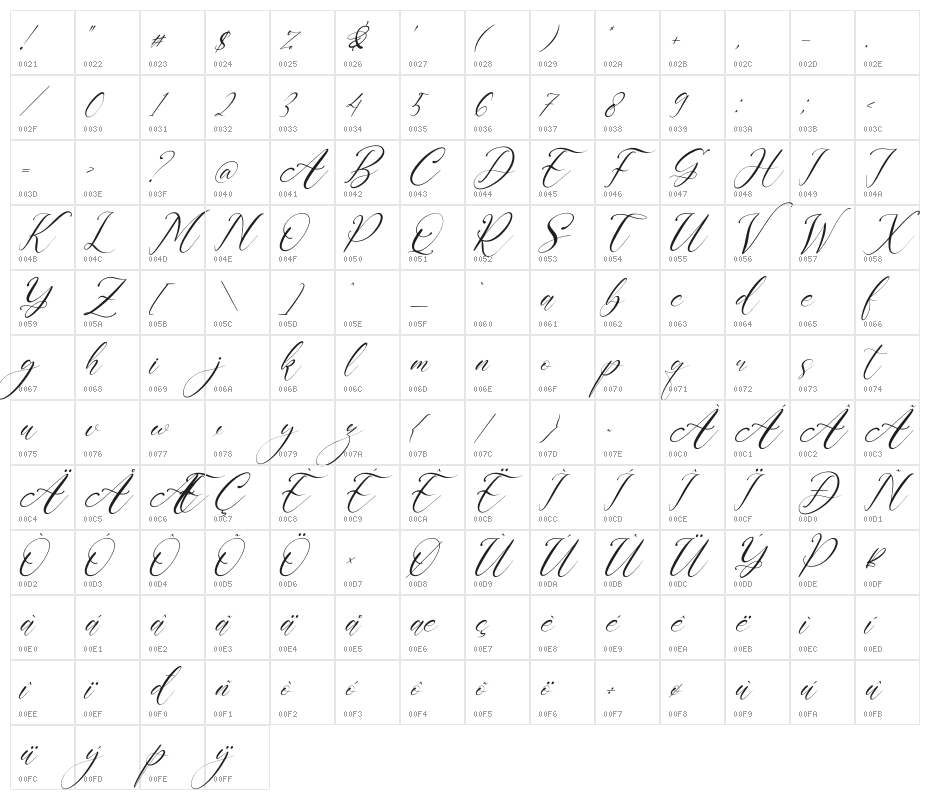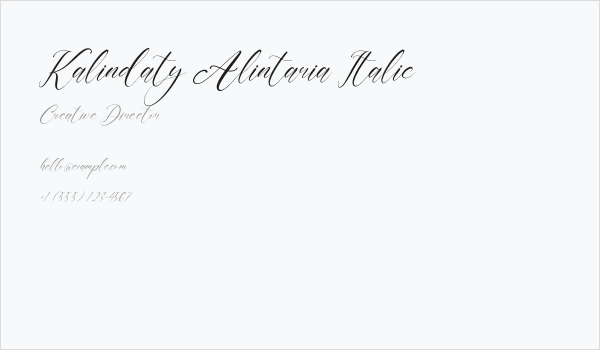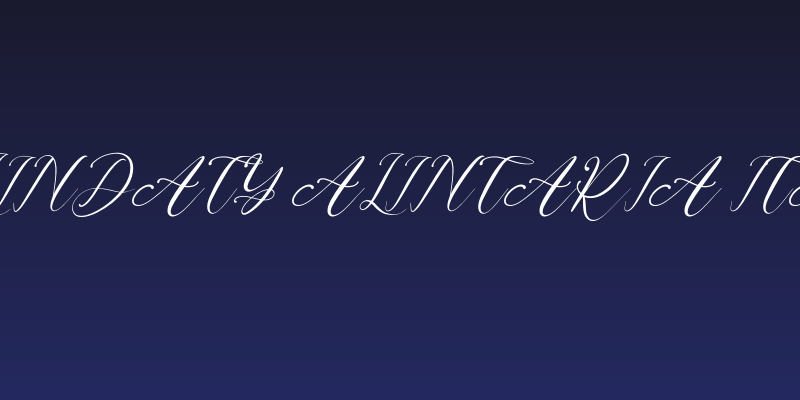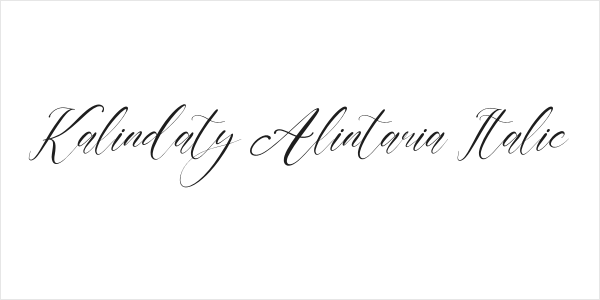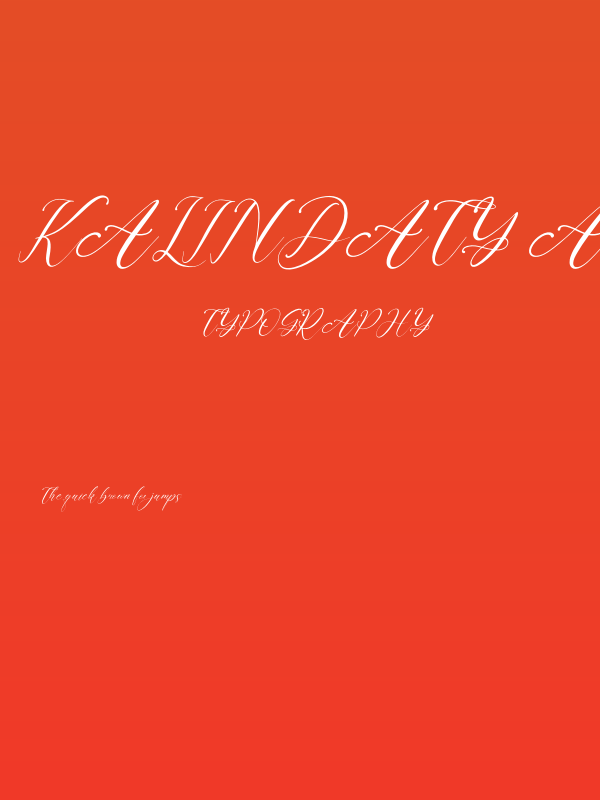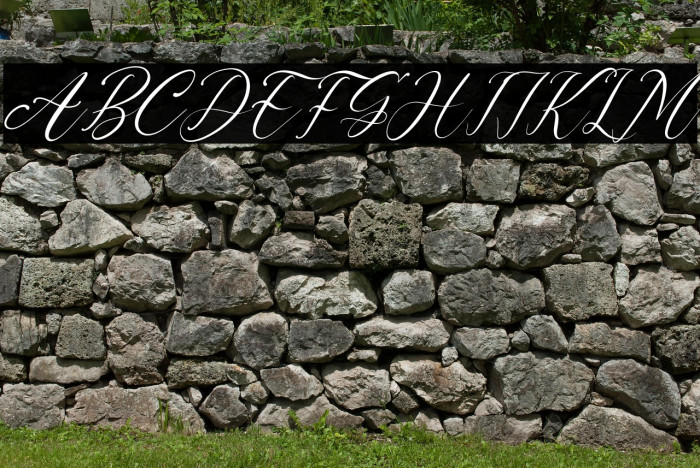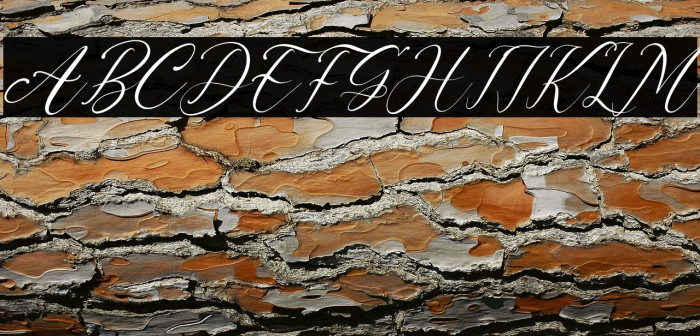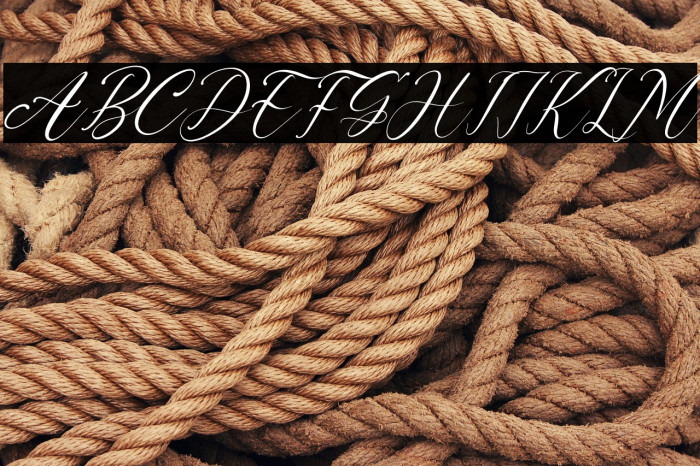
Kalindaty Alintaria Italic Font
Kalindaty Alintaria Italic Description
This elegant script font exudes a sense of sophistication and fluidity, characterized by its graceful, flowing lines and intricate loops. The letters are connected in a seamless manner, creating a harmonious and continuous script. The uppercase letters are slightly more ornate, with extended flourishes that add a touch of drama. The lowercase letters maintain a consistent slant, enhancing the cursive style. The numerals and special characters are designed with the same attention to detail, ensuring a cohesive look across all elements. This font is perfect for projects that require a touch of elegance and refinement.
| Proposed Projects | Ideal for wedding invitations, elegant branding, personal stationery, and high-end product packaging. |